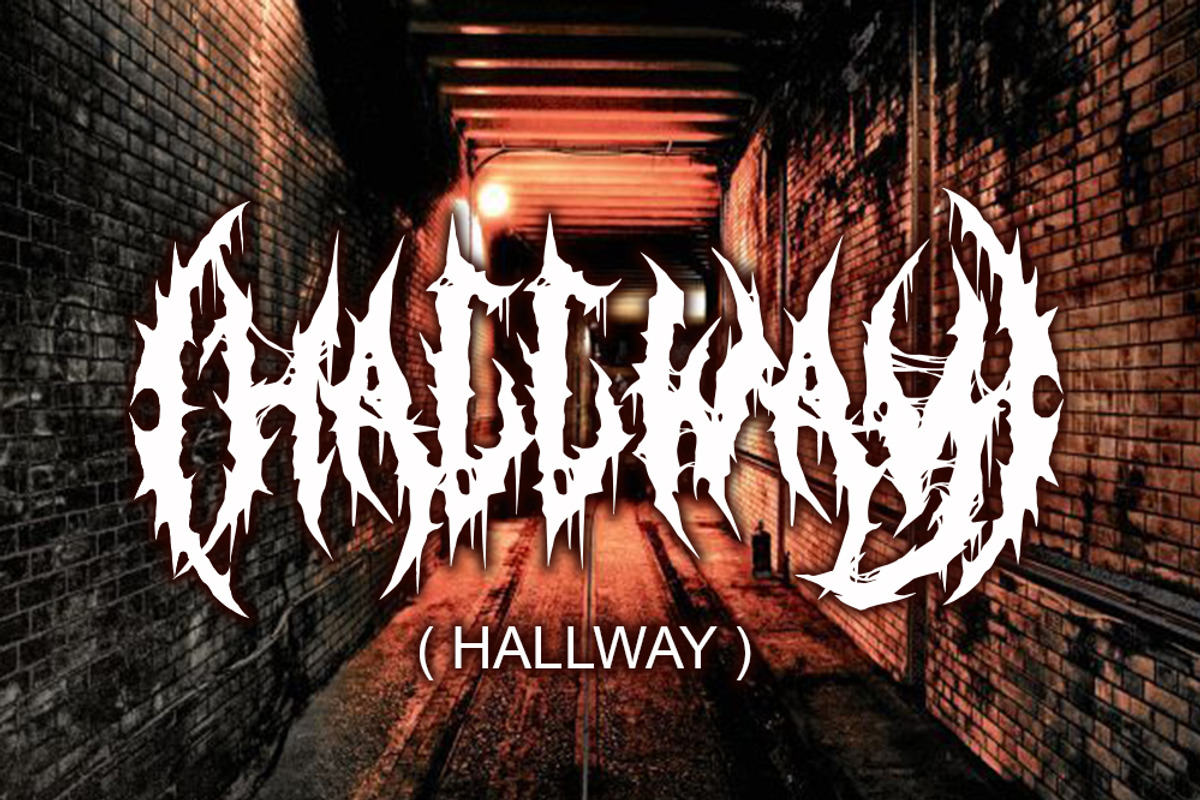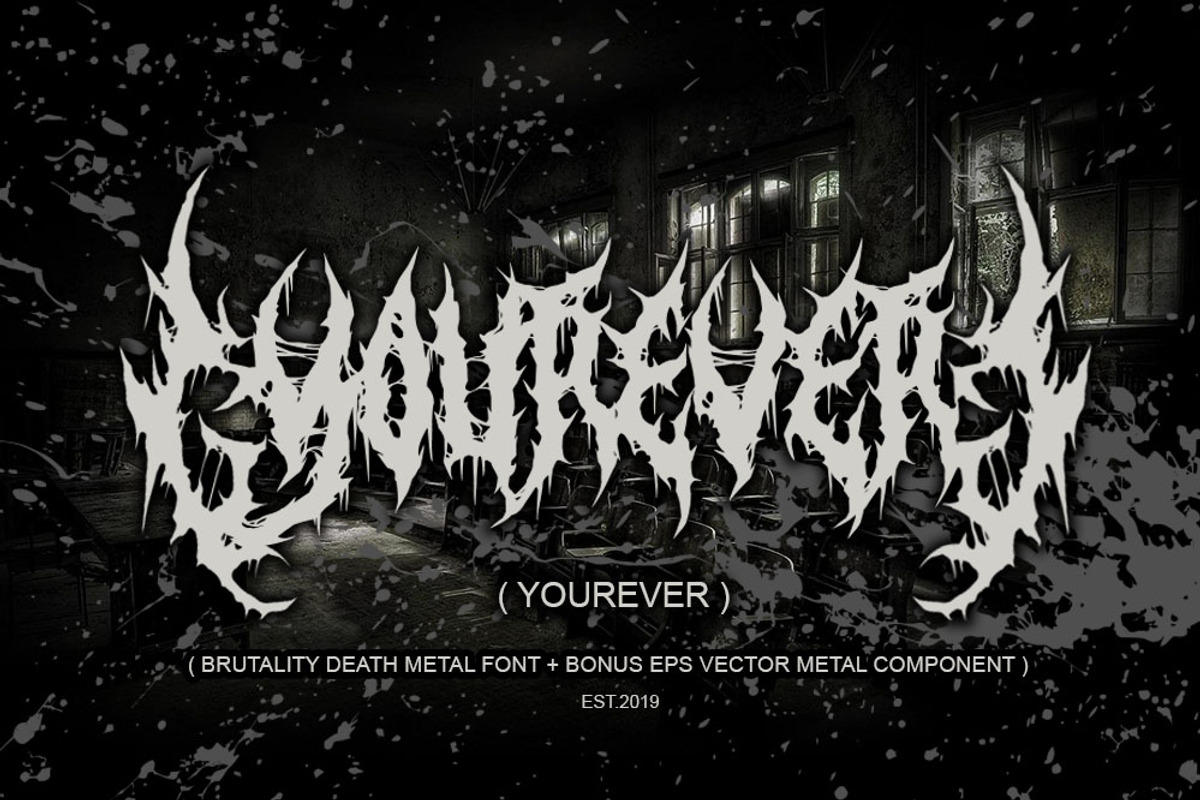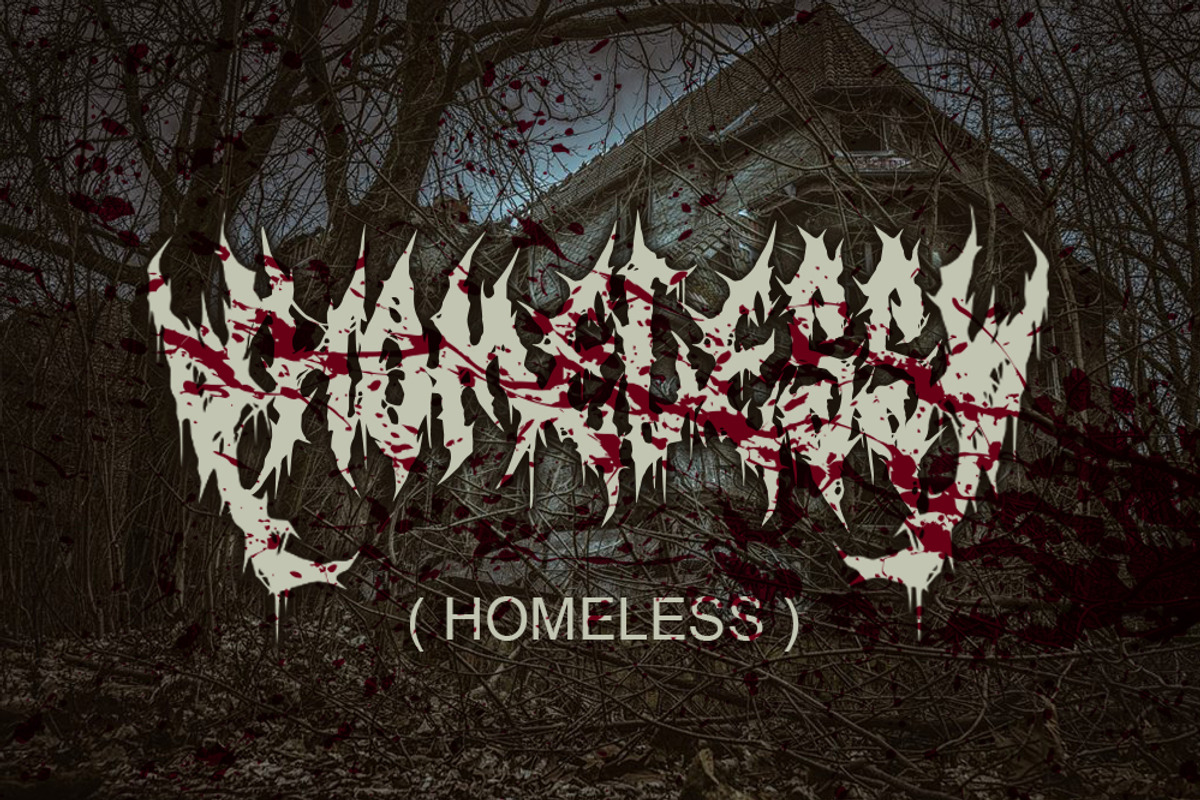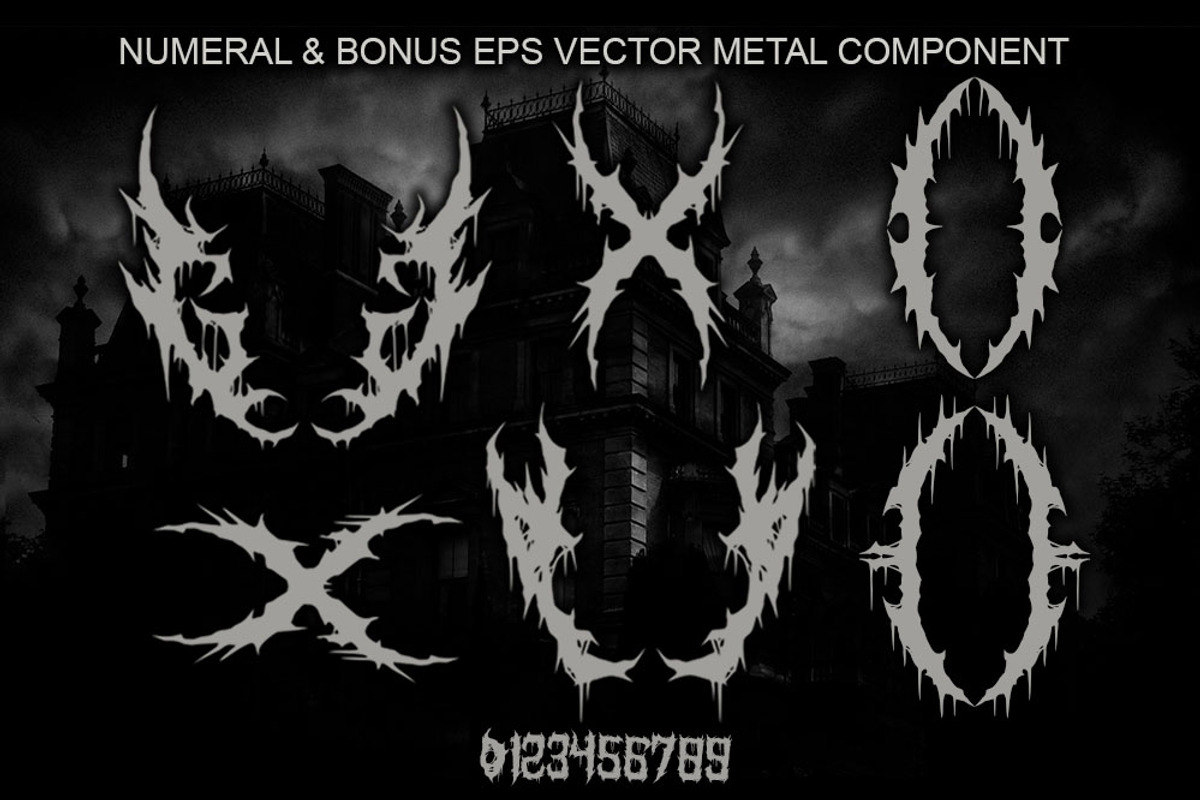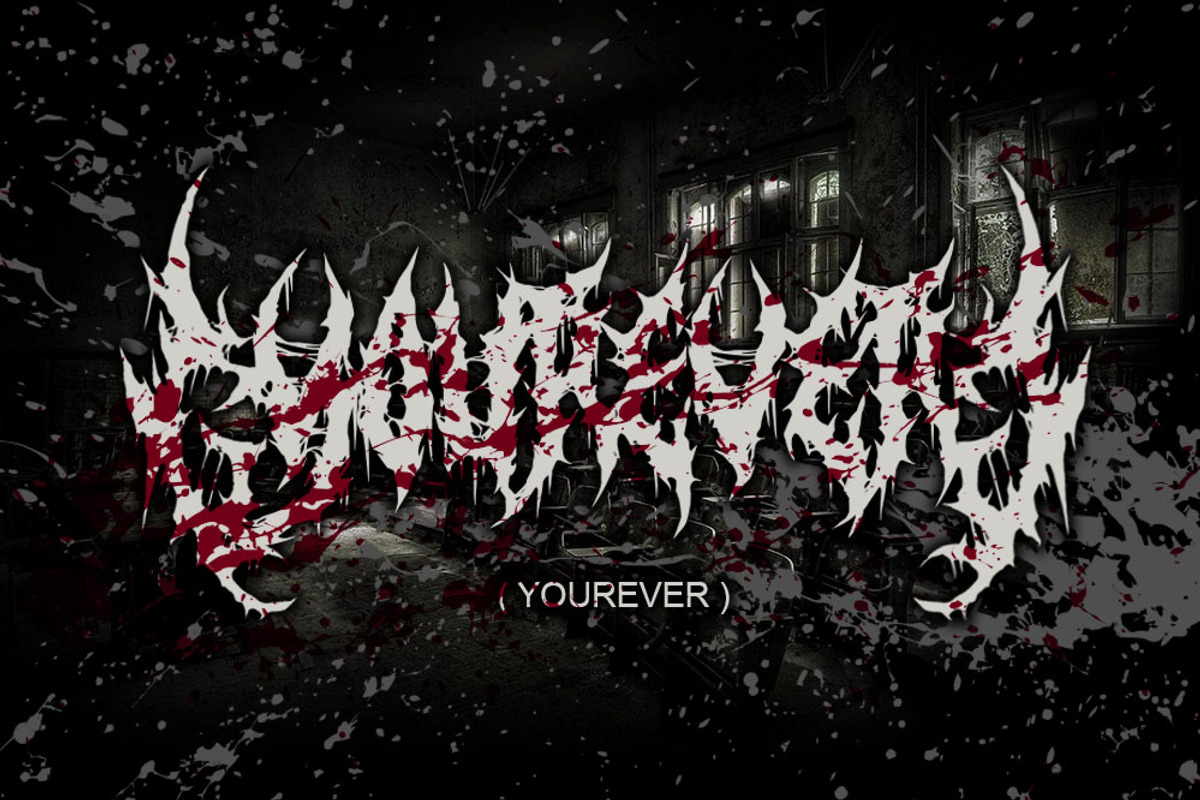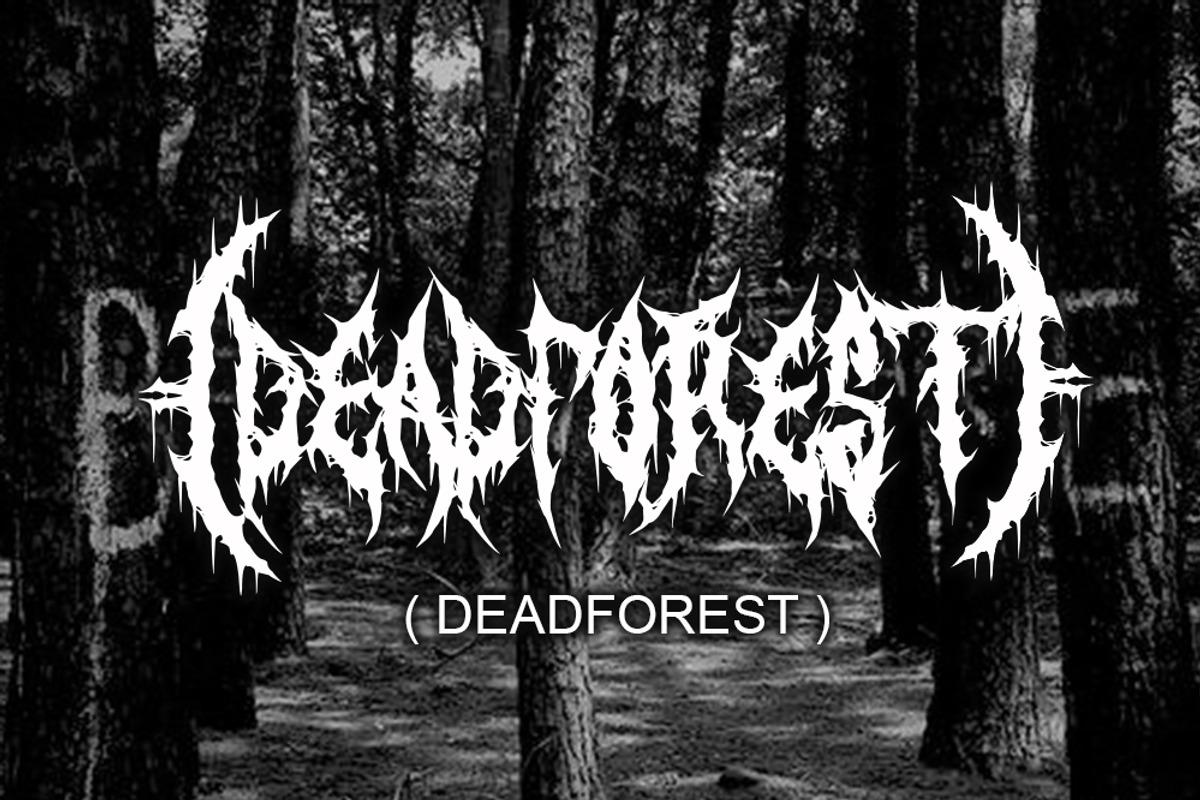
YOUREVER ( BRUTAL DEATH METAL FONT )
introduce a brutal death metal font. can be used for logos or branding and your metal band name without having to pay for expensive logo making services. just by buying this font, you can immediately make your own band or brand logo name. features: - uppercase - lowercase - numerical - otf & ttf - bonus eps vector metal component - parenleft, parenright - bracketleft, bracketright - braceleft, braceright enjoy it. thanks.